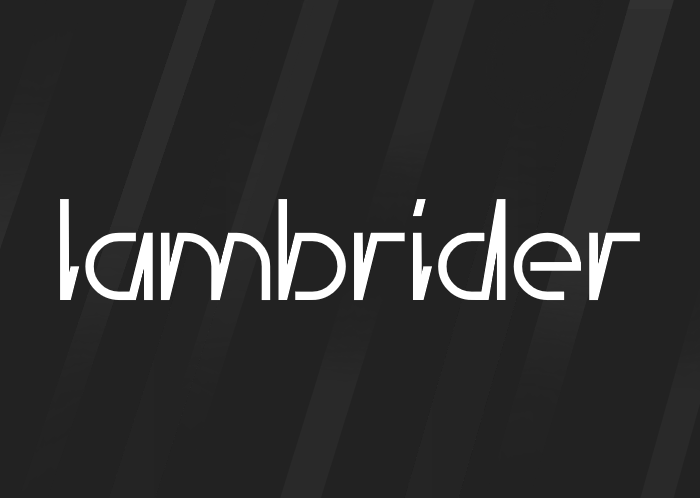
Very nice concept... really hunks for a more complete (full Basic Latin) if you ask me tho... :D
It's nice. Z is easy to fix because Z diagonal is not the same angle as the other angles of your letters. So just made the Z diagonal more steep and it should fix. X should probably be just two crossing diagonals done in a single stroke so probably a vertical line connecting on left or the right side. For example I write my top-right:bottom-left x diagonal first so based on my handwriting it would be top-right, bottom-left, top-left, bottom-right stroke. S is probably a very skinny squiggle keeping with the style.
Really nice solutions though. Love the lowercase L.
Idea for the "S"...
Крутой шрифт, зарождающаяся новая розовая звезда (но для этого нужен полный знаковый состав). А мне нравятся текущие версии x s. может стоит сделать нижнюю часть t как в l.
Updated the "s" and the "t". Let me know if this works
Sychoff's Russian comment (translated): Cool font, a new pink star is emerging (but this requires a full symbolic composition). And I like the current versions of the x s. maybe we should make the lower part of the t like in l.
idea for 1, 2, 4, 5, 9